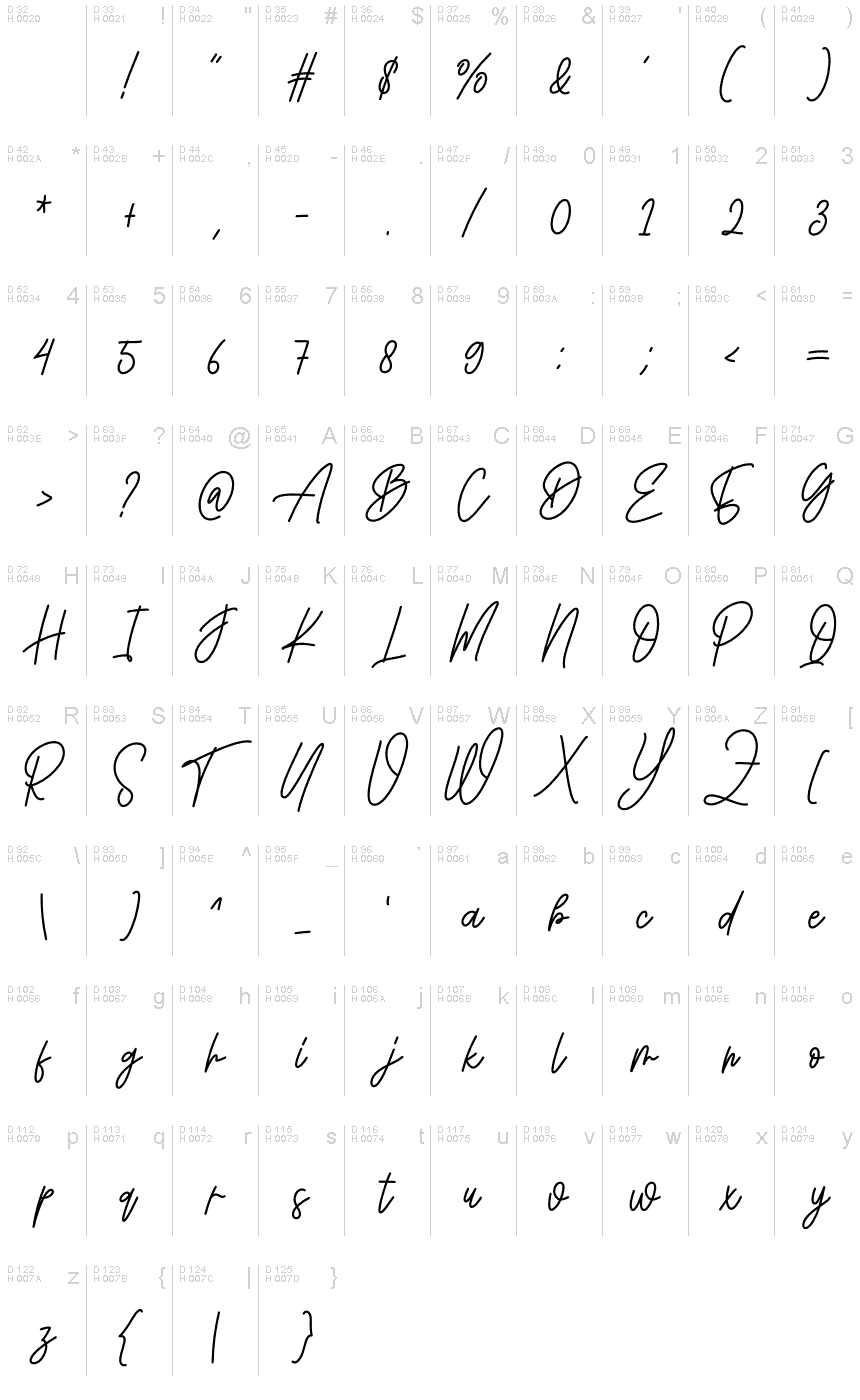
With Night
With Night is a captivating handwritten font by Scratchones. Its light weight and semi-condensed width make it perfect for creating elegant and delicate designs.
Use this sophisticated font to add a touch of charm to wedding invitations, fashion magazines, and beauty blogs. With Night's flowing strokes and unique character variations will bring a sense of whimsy to children's books, while its understated elegance will enhance branding for luxury products or high-end restaurants.
Let With Night illuminate your creative projects with its enchanting handwritten style.